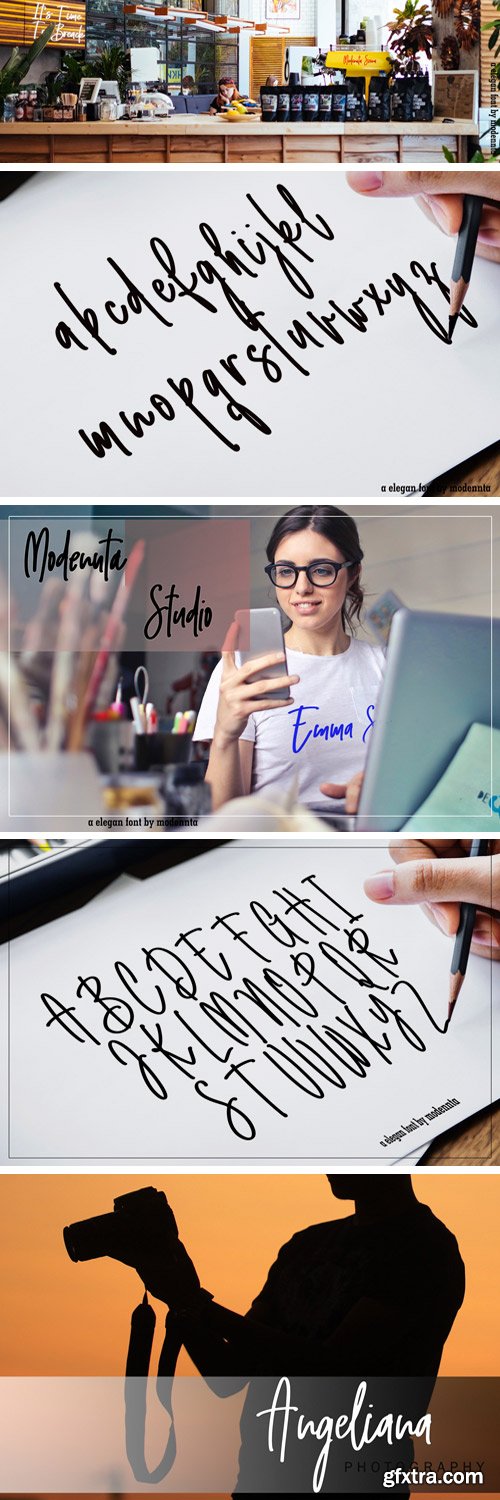
readable script fonts
Free script fonts aka free cursive fonts add a special and versatile aesthetic to your designs.
Script typefaces are based upon the varied and often fluid stroke created by handwriting pretty much like the cursive fonts just typically more elegant. By definition script fonts are fluid varied and connected. They can be used to to mimic formal or ornate handwriting or even a casual scrawl. Im extremely picky when it comes to this particular area of typefaces and tend to hate most of what i see.
Compare the script font to the sans serif font in this example. Easiest fonts to read. A good script font is hard to find. It is a bold headline font in 1 weight.
A typeface that appears to be hand lettered by pen brush or pencil is a script font. Adobe fonts is the easiest way to bring great type into your workflow wherever you are. The result being a typeface thats fun and captivating yet still highly readable and versatile. They are organized into highly regular formal types similar to cursive writing and looser more casual scripts.
With this post you can skip the work of sorting through the junk and cut straight to the best script and handwritten google fonts that are readable attractive and perfect for your site. It can add elegance to a design but moderation is key. Or maybe youre on a. You could add a signature style font or even a font that is reminiscent of brush lettering.